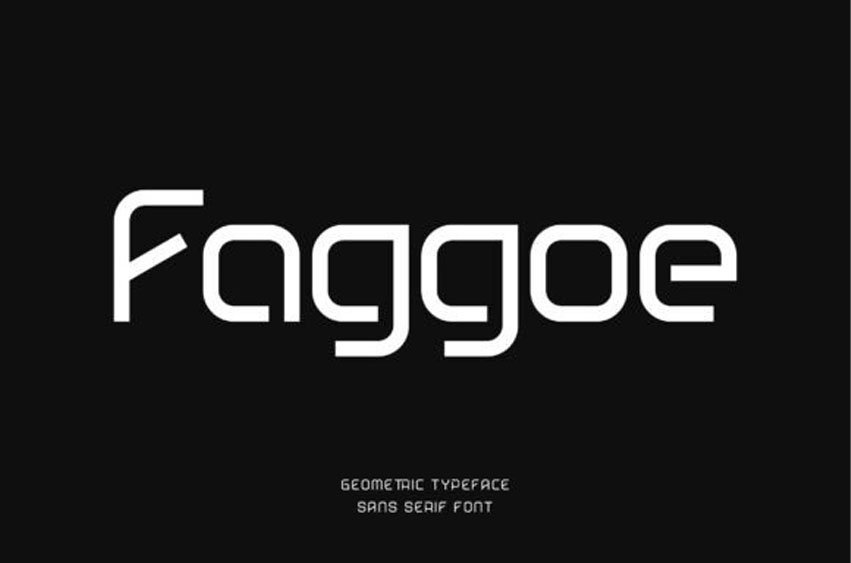
Faggoe Font is a clean and modern minimalist technology font designed to express innovation, clarity, and digital sophistication.
Built with sharp lines, balanced geometry, and streamlined proportions, Faggoe delivers a futuristic aesthetic while maintaining excellent readability.